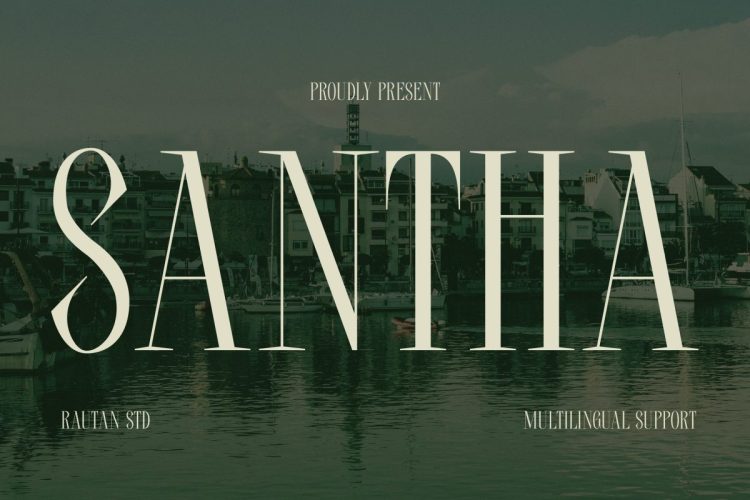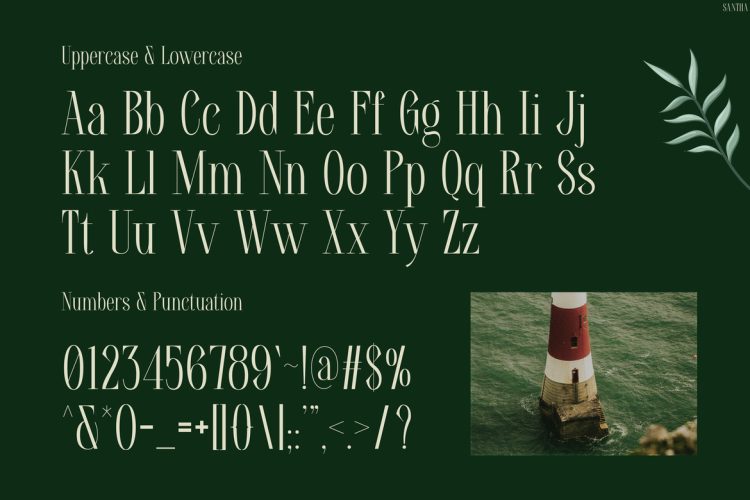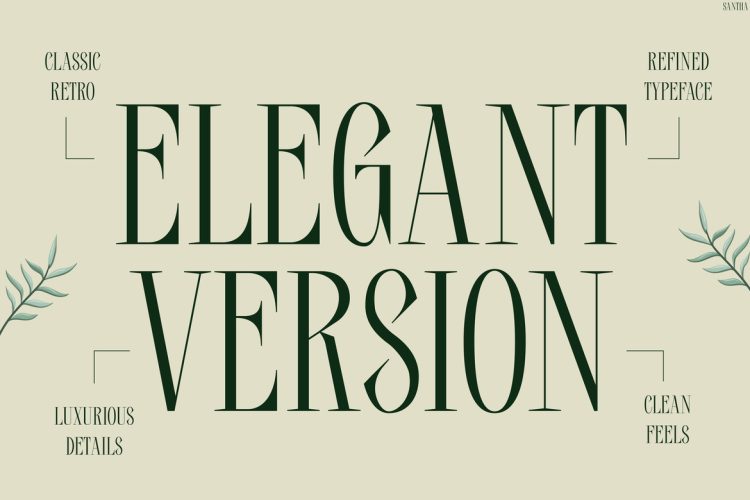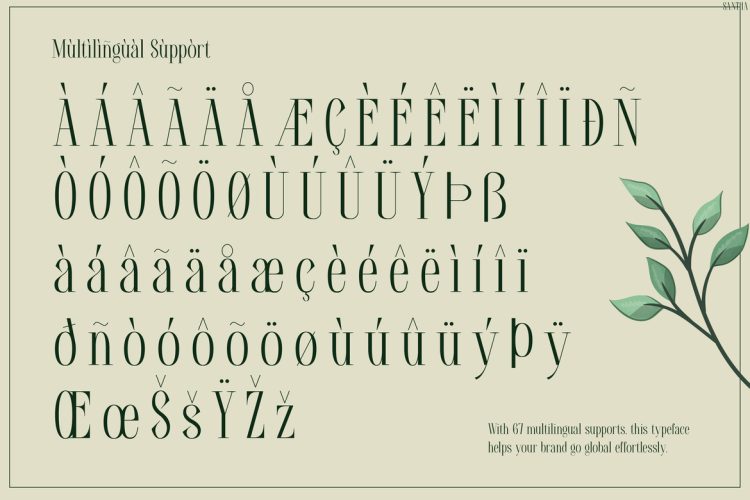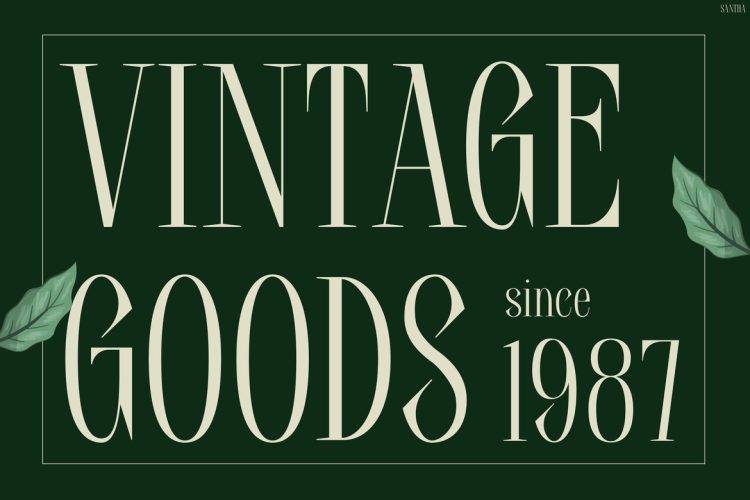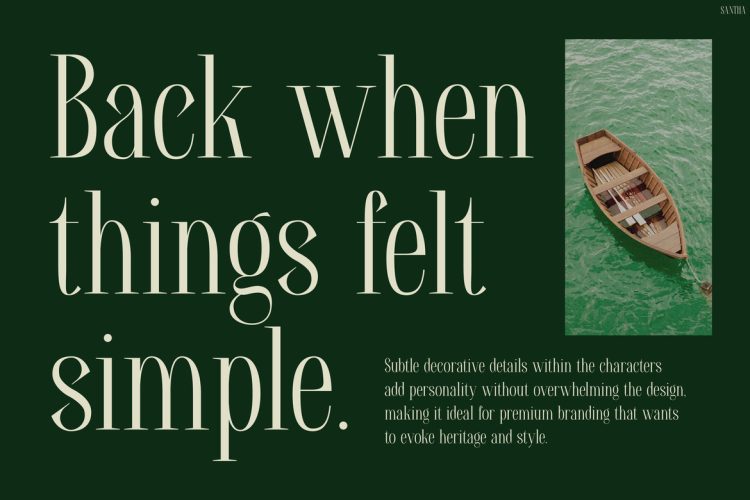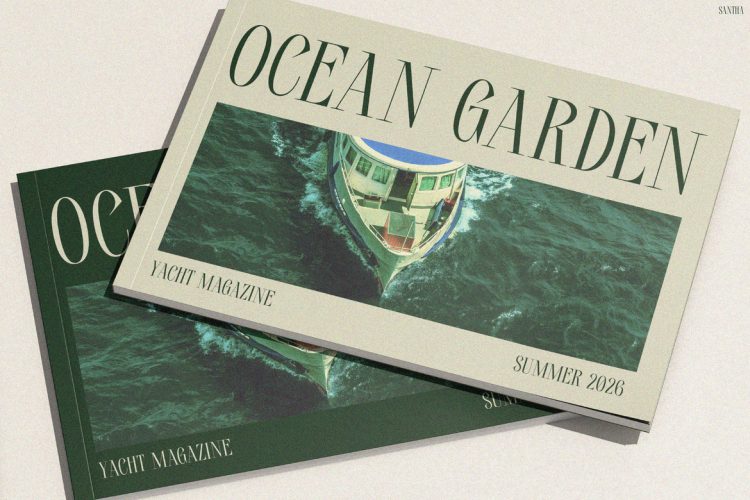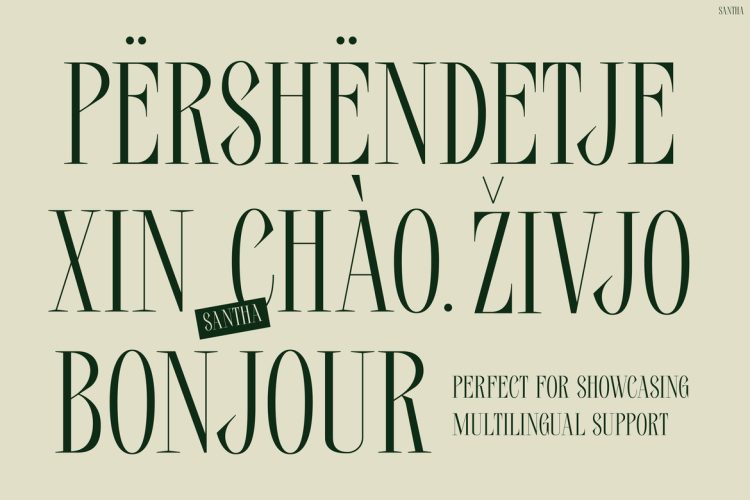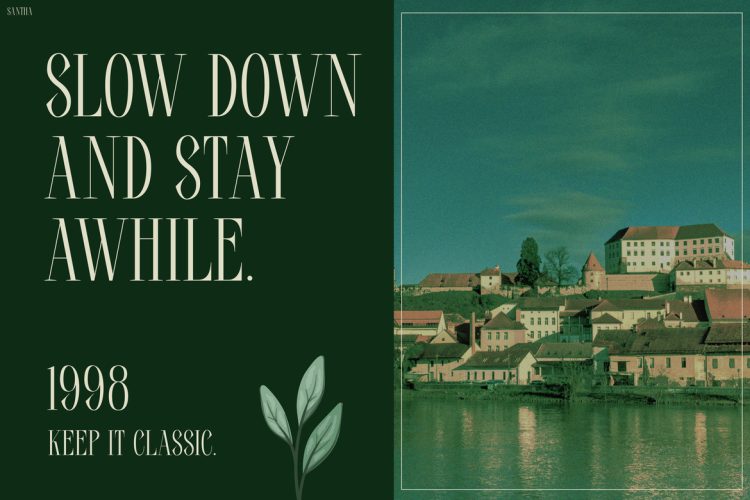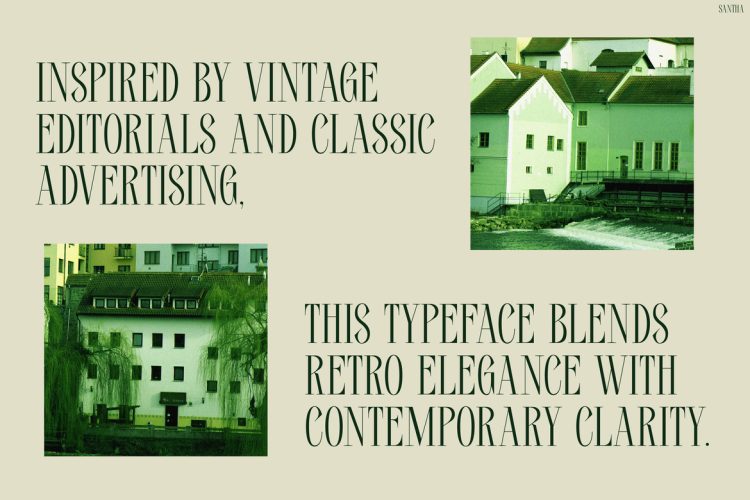
Santha โ Elegant Serif Font for Timeless Luxury Designs
Instagram Font Santha is a sophisticated modern serif that blends timeless elegance with contemporary simplicity. From the very first glance, its tall high-contrast letterforms create a graceful and luxurious visual identity. Moreover, every character is carefully designed to deliver exceptional readability without losing its refined personality. As a result, your headlines immediately become more eye-catching and memorable. At the same time, its balanced proportions keep every layout clean and professional. Even better, Santha includes Multilingual Support for 67 languages, so your designs can reach audiences around the world with confidence.
Why You’ll Love It
Whether you’re designing Instagram content, editorial layouts, luxury branding, magazines, invitations, or premium packaging, Santha adapts beautifully to every creative project. Furthermore, its minimalist structure complements both modern and vintage aesthetics. In addition, the elegant letterforms create a polished appearance with very little effort. Not only does this typeface strengthen your visual identity, but it also adds sophistication and clarity to every message. Likewise, it pairs effortlessly with clean layouts, stylish photography, and premium branding. Consequently, designers, agencies, entrepreneurs, and content creators can achieve professional results faster. Meanwhile, the multilingual character set makes it suitable for international branding and global campaigns.
Instagram Font Santha Perfect For
- Fashion and beauty brands
- Luxury product packaging
- Editorial and magazine layouts
- Instagram content creators
- Wedding and event stationery
- Boutique and lifestyle businesses
- Creative agencies
- Personal branding and logo design
Elevate Your Creative Vision